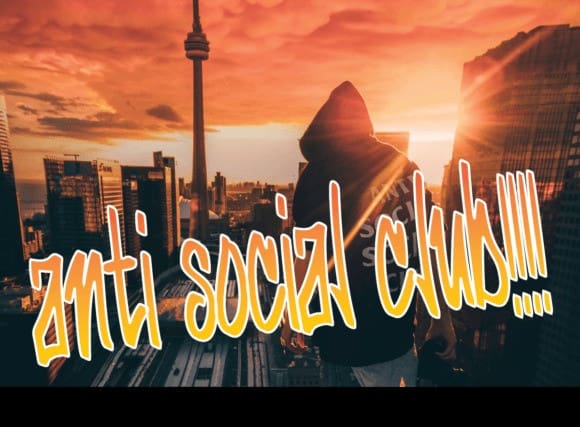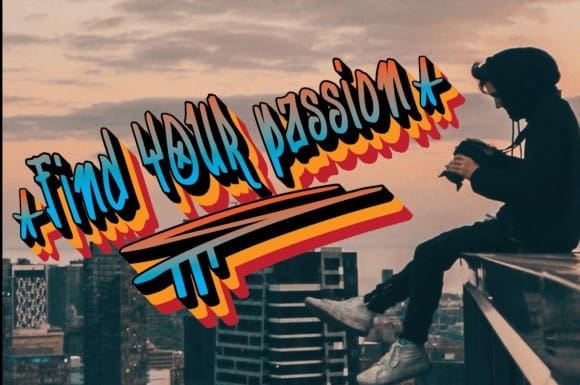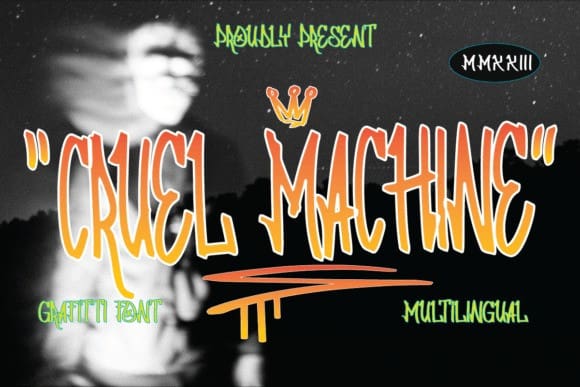
Cruel Machine Font
Cruel Machine Font is a simple and elegant graffiti font with an upright position so that it can still be read when made for display or print on your product, you can use this font for your masterpiece works. Please include this font in the collection on your device.